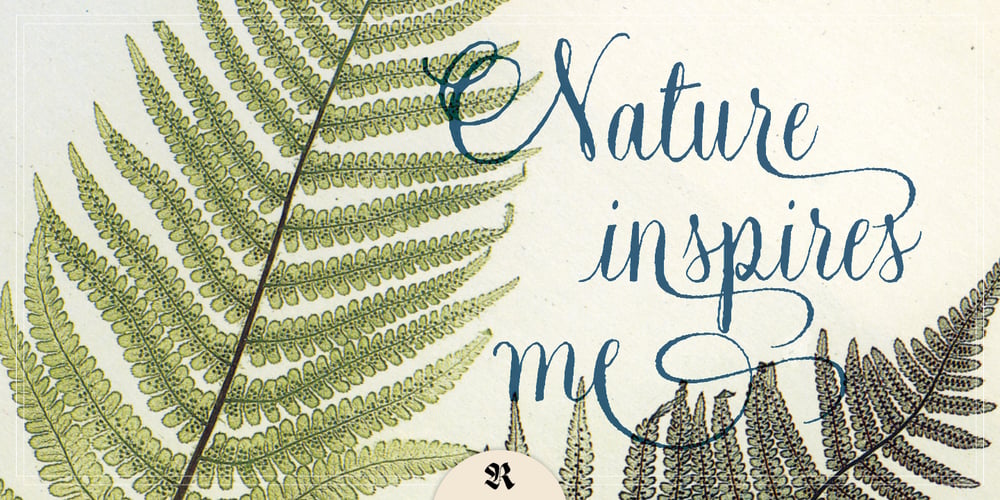
Natura
Natura font
Natura Font Family was designed by published by Resistenza. Natura contains 5 styles and family package options. Inspired by old nature field notebooks, Natura was born out of the passion for new modern hand-calligraphy, designed first with a flexible fountain pen and then digitalized glyph by glyph to get the natural feeling of the dry ink on smooth paper. This family includes five different fonts. Natura regular is an upright script with lots of swashes and ligatures and offers a wide range of flexibility with its many Opentype features. You will also find that its initial and terminal letters can enhance your designs in new and creative ways. Natura Slanted font offers the same functionality than Natura Regular but we changed the angle 16 degrees, creating an elegant feeling. Natura Notebook, is a narrow serif font with a stylised grunge effect with strong, legible vertical height. Natura Icons and Natura Stamps complete the whole family with incredible flourished elements and capital letters inspired by nature. Hand-drawn leaves, plants, flowers, as well as large and small animals add original detail while complementing the font perfectly. Natura is ideal to use for event invitations, special purpose cards, signatures, labels and packages. Check out also ‘Modern Love Slanted’ Turquoise Nautica